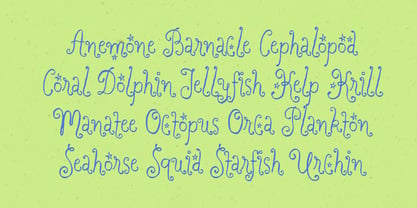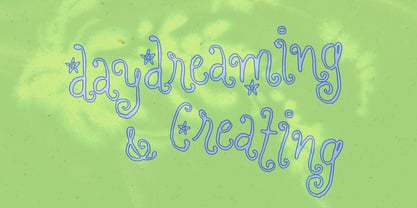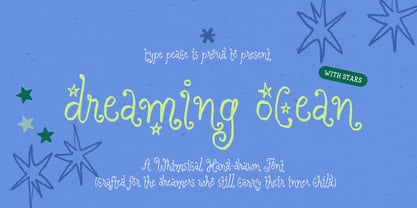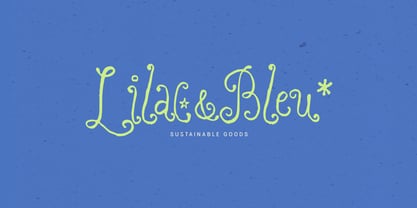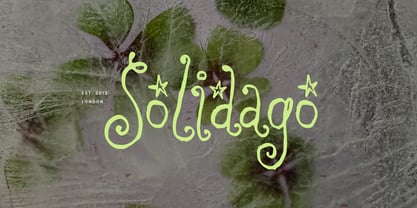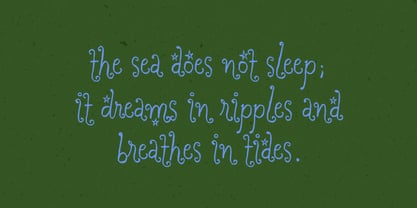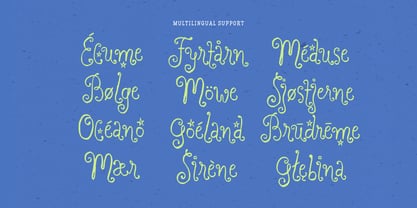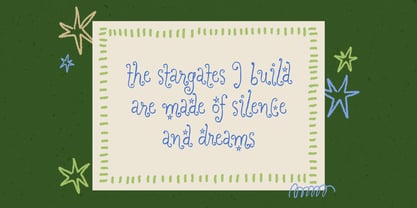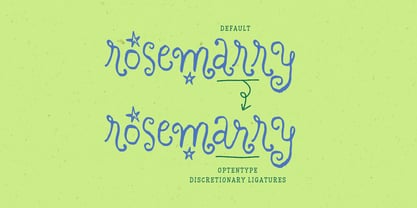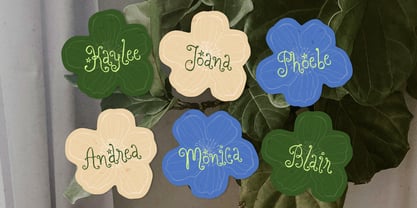
Dreaming Ocean
by type peace
The Dreaming Ocean Font Family was designed by Hai Anh Nguyen and published by type peace. Dreaming Ocean contains 2 styles and family package options. More about this family
Say hi to Dreaming Ocean, a whimsical, hand-drawn typeface crafted for all the dreamers who still carry their inner child. Its curly, organic curves and slightly rough texture capture a playful innocence, giving your words a magical, storytelling quality. It doesn't take itself too seriously, it's loose and full of joy!
This typeface is perfect for branding projects, packaging design, eye-catching social media graphics, and creative editorial layouts that need a dreamy, human touch.
type peace is an independent type foundry specializing in expressive, handmade typography. Born from a deep-rooted passion for letterforms and the art of calligraphy, each typeface is the result of constant experimentation with diverse tools—from traditional ink and brushes to digital and unconventional techniques. By preserving the subtle imperfections of the hand-drawn stroke, type peace crafts approachable, soulful fonts that bring warmth and authenticity to branding, packaging, and creative storytelling.